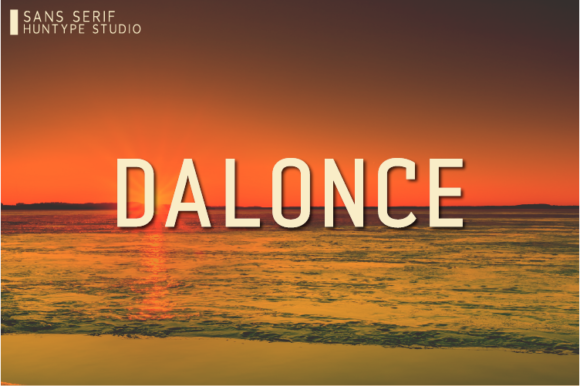
Introducing Dalonce Font, the epitome of corporate elegance in the realm of typography. This meticulously crafted sans serif font, born from the creative forge of Huntype, is poised to redefine your design ventures with its understated sophistication.
Dalonce captivates with its clean lines and airy letterforms, exuding a timeless appeal that transcends fleeting trends. Its versatility extends far beyond corporate logos, making it an ideal choice for branding, web design, editorial layouts, and even personal projects.
Whether you seek to craft a striking logo that commands attention or elevate your website's visual presence, Dalonce gracefully adapts to your creative vision. Its minimalist essence allows your message to shine, while its inherent elegance adds a touch of refinement that sets you apart from the ordinary.
With Dalonce, you'll discover a font that effortlessly elevates your designs, leaving a lasting impression on your audience. Its versatility knows no bounds, making it the perfect companion for a myriad of creative endeavors.
Embrace Dalonce, and unlock the potential for greatness in your design pursuits. Experience the allure of simplicity, the power of elegance, and the boundless possibilities that await you with this exceptional font.